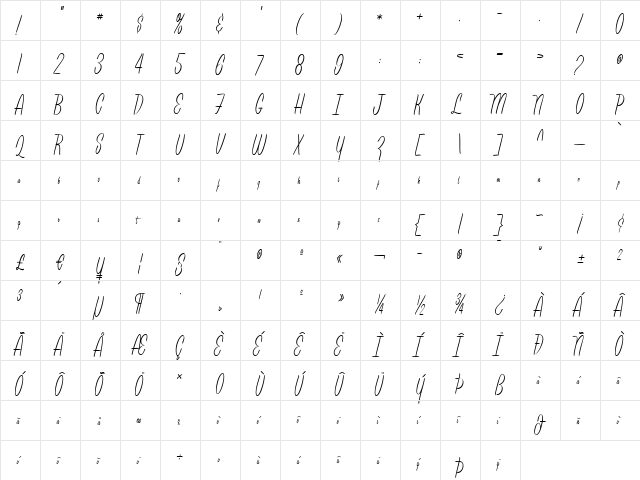
LeisureScriptMarquee Regular
Design Context for LeisureScriptMarquee Typeface
LeisureScriptMarquee brings a calligraphic fluidity to the page — its connecting strokes and expressive curves give it an unmistakably human quality.
Font Pairing: Combine LeisureScriptMarquee with a simple geometric sans for maximum contrast — the tension between flowing curves and clean structure is a classic typographic pairing.
Pro Tip: Use LeisureScriptMarquee for short runs of text — names, titles, or taglines. Extended body copy in script faces tires the eye quickly.